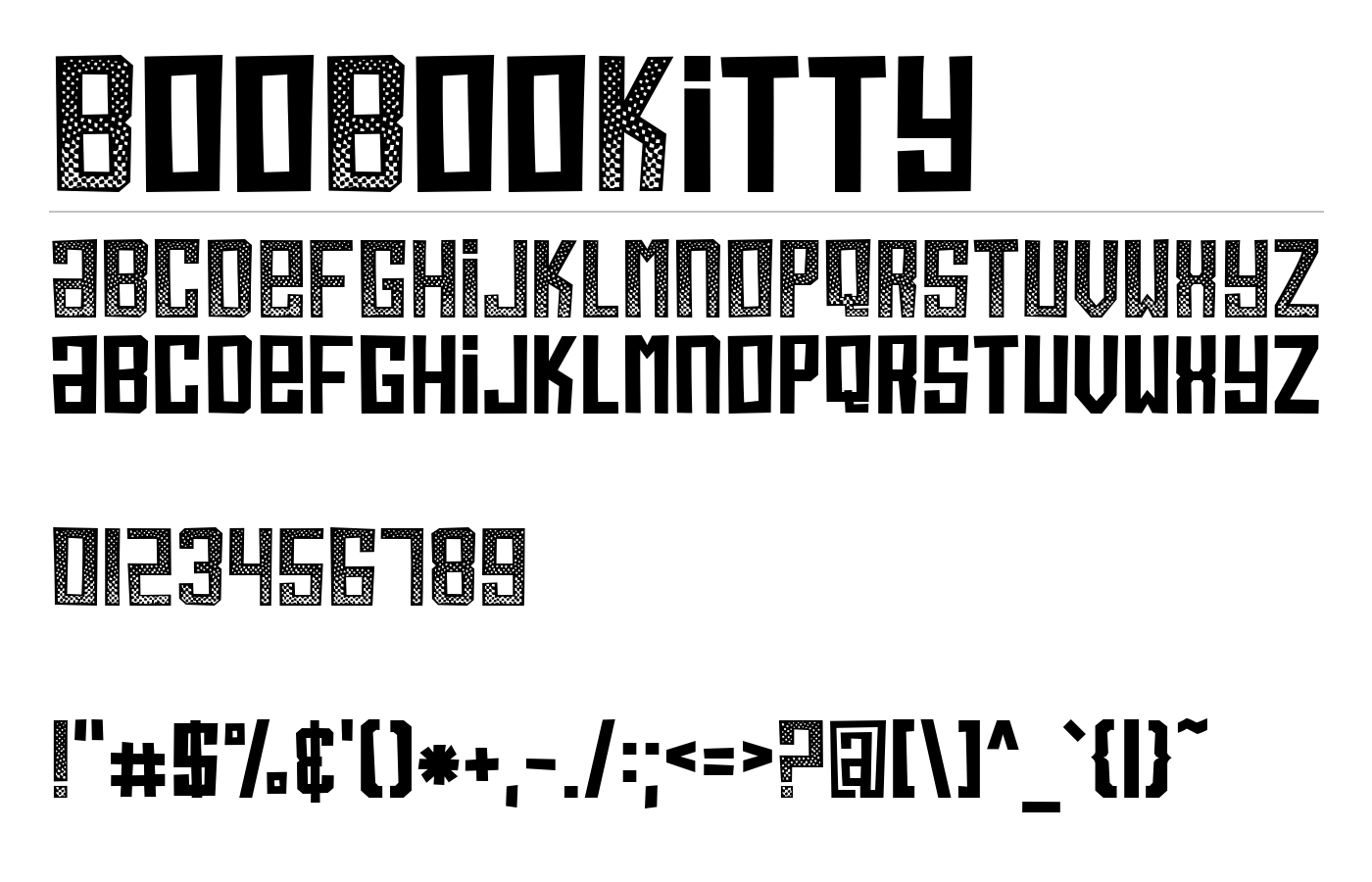
BooBooKitty is a bold, playful sans serif font with a quirky, uneven structure and a mix of solid and patterned textures that add character and charm. Its tall, condensed letterforms with irregular shapes create a fun, informal vibe, making it perfect for eye-catching headlines, posters, and creative designs that want to convey energy and personality. This font works well for brands or projects seeking a unique, whimsical style that stands out with a handcrafted, artistic touch.
BooBooKitty Font